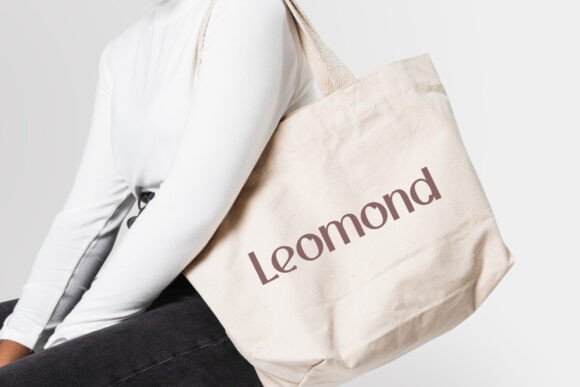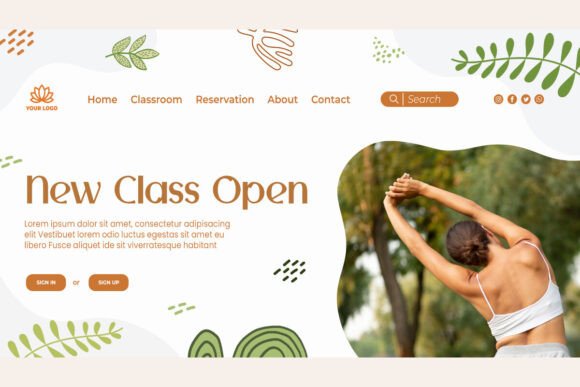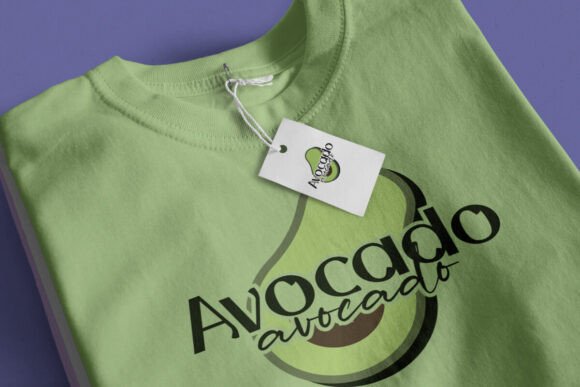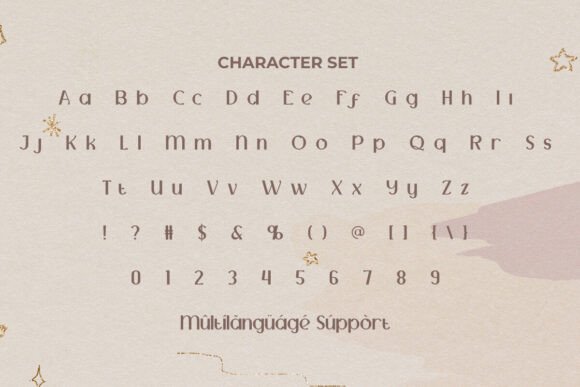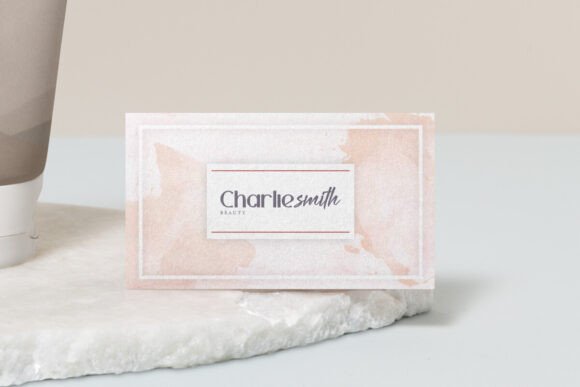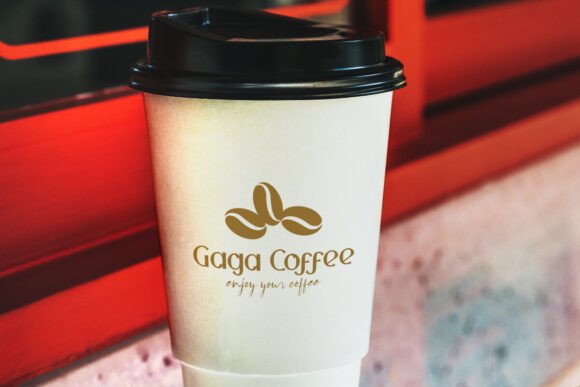
Introduction to Leomond Font
Leomond Font is a modern, stylish sans serif display font.
This font has an attractive line shape with additional small lines at each end of the letters It will be good for any designs, such as brand image, custom design, flyer, invitation, label, marketing material, menu, poster, product packaging, quote, screen print, signage, stationery, website page, and more.